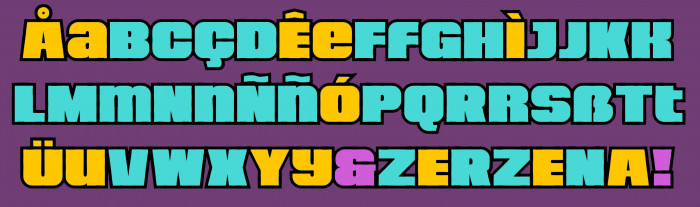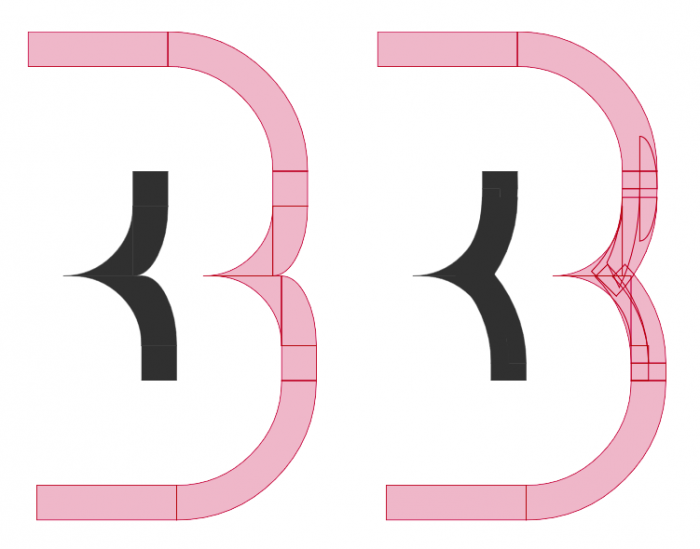
Outline unicase font with a lot of alternates (including a lowercase "c" at the "¢" glyph).
Cowabunga compa!
Thats just of the chart, with a super cool concept. Especially for Fontstruct as your vehicel of choice. And it seems to works so well. Stuff like this is often taken for something basic and easy to built due to the clean and rather basic letterform geometry.
Well ya'll.. [Newsflash] welcome to the wonderful place that is Fontstructia. A rich place and rather divers place with sometimes wonky community. A place where its crazy hard to make even the simplest of things by any means. And the return you get from this slight ‘detuned’ and heavily trial/error-style of doing things making this a very strong contender for a episode of Bad Gear. its mostly feature-less stripped down design lives much up to traditional Bad Gear standards.[/Newsflash] So yeah, Its all the more amazing that something this pleasant looking can come out of ones fingertips while only using this hazard of a Font creation tool.
And don't get me wrong, my opinion on FS isn't what it seems at first, and share the same overall philosophy that I have towards all shitty pieces of gear. Once you have worked around their limitations and settle with the way things are build these days you'll start to embrace those limitations. Diving deeper and deeper into the rabithole that is the FS-editor, untill suddenly you realize you're now hooked. Ever seeking for that next fix!
It's for that reason only your capable of dropping big yield goodness like this my friend. Insta favo!
What about this for B's intersect compa?
@elmoyenique - What a wondeful 'chunky' outline font! I really like this design. :^)
Excellent outline font with great details
I see you updated the stroke intersection, much better now!
I love these fat letters. 10/10 my friend